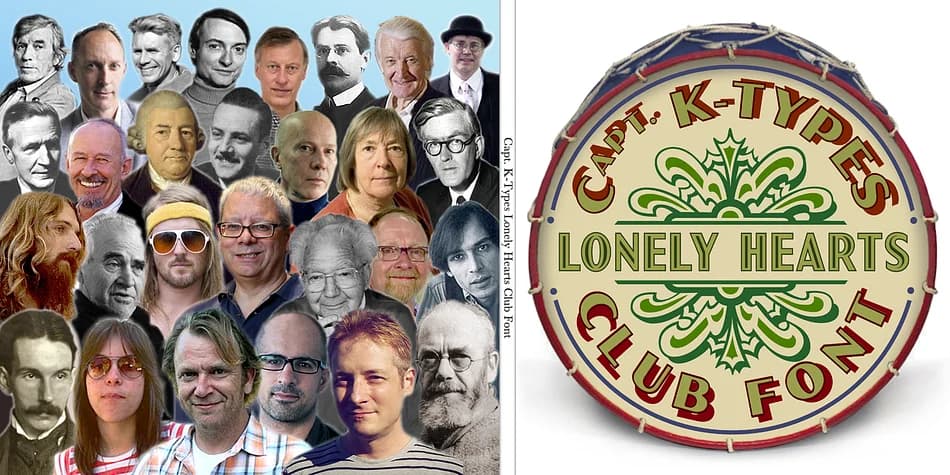
These letterforms carry unmistakable retro energy: chunky, geometric, with that irreplaceable art deco sensibility that emerged from fairground design in the 1960s. K-Type's Sgt Peppers Lonely Hearts Club draws directly from Joe Ephgrave's hand-painted lettering on the Beatles' Sgt Pepper album bass drum (1967), capturing both the wider outer-edge style and the condensed inline 'Lonely Hearts' variation from the drum's center. The font family delivers more than 400 characters, spanning full uppercase and lowercase alphabets plus plenty of special glyphs.
What sets this typeface apart for collectors and designers is the Outline and Outline Fill variants, which sit with perfectly matched spacing and kerning. Layer them together for striking bicolor and multicolor effects that read like vintage custom drum painting. Use this for concert posters pulling from 1960s aesthetics, album artwork and music packaging that need that period-authentic vibe, retro band merchandise and t-shirt graphics, or psychedelic rock event flyers. The personality here is boldly nostalgic without feeling like parody, which makes it work equally well for ironic contemporary uses and historically inspired projects.
Sgt Peppers Lonely Hearts Club Font is a decorative font that shines as a display or heading face. Pair it with a clean sans-serif or serif font for body text β the contrast creates a clear hierarchy while the two styles stay balanced and easy to read.